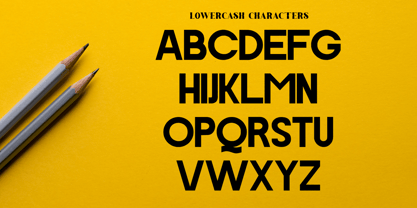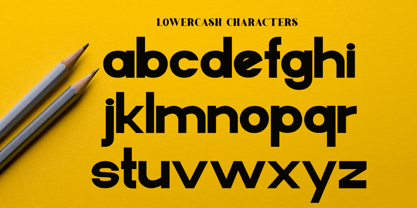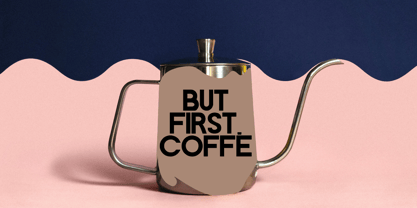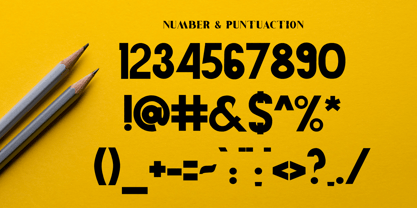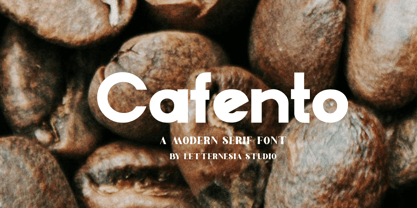
Cofento
por Letternesia studio
La familia tipográfica Cofento fue diseñada por Ta Siyo y publicada por Letternesia studio. Cofento contiene 2 estilos y opciones de paquete familiar. Más información sobre esta familia
COFENTO is a bold display typeface inspired by coffee culture, barista aesthetics, and handcrafted lettering. It features strong, confident letterforms with a warm and expressive character, making it perfect for designs that want to stand out and feel inviting. Designed to shine in large sizes, COFENTO works exceptionally well for logos, coffee shop branding, packaging, posters, menus, product labels, and headline designs. Its display style brings a modern yet cozy vibe—ideal for coffee-related projects as well as lifestyle, vintage, and creative branding. Whether you’re creating a café identity, coffee packaging, or eye-catching headlines, COFENTO delivers a distinctive visual flavor that feels bold, stylish, and full of personality.
Diseñadores: Ta Siyo
Fundición: Letternesia studio